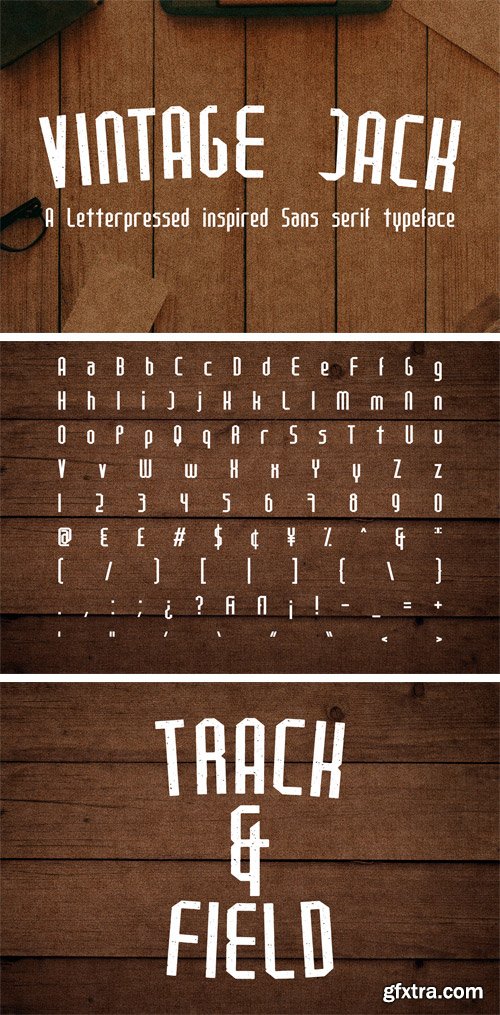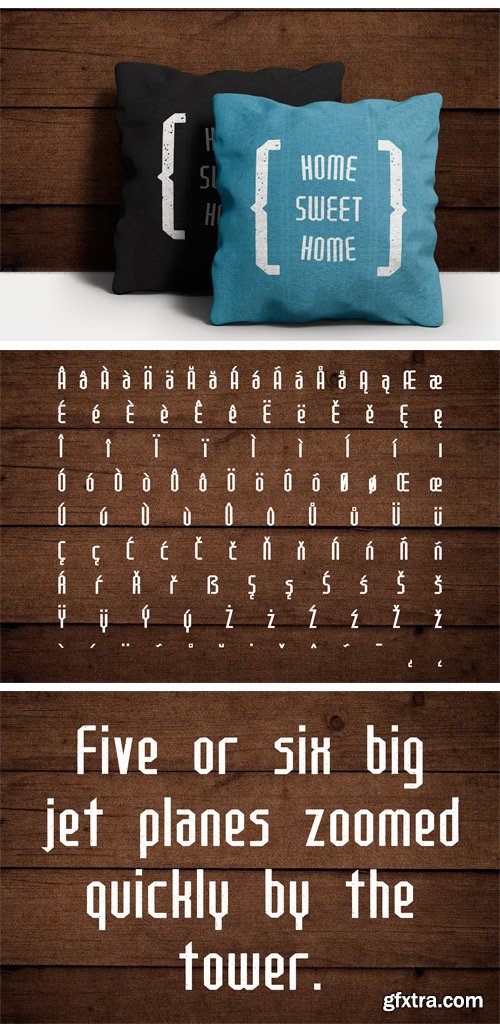
Vintage Jack 15415
This is Vintage Jack, a letterpresses inspired typeface which takes classic letterforms and gives them a unique distressed appearance.
The typeface includes a large number of character with uppercase, lowercase, numbers symbols and a whole host of accented characters which cover a large proportion of European languages. This font is suitable for a wide range of purposes including titles and headlines, but can also be used to great effect on garments, soft furnishing, posters, packaging, covers and more.